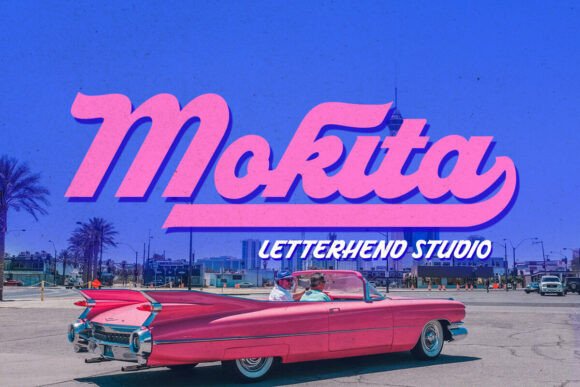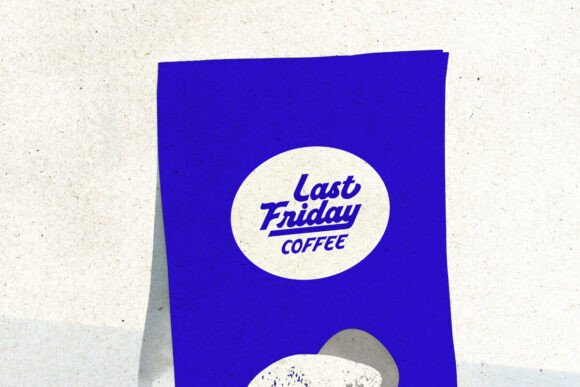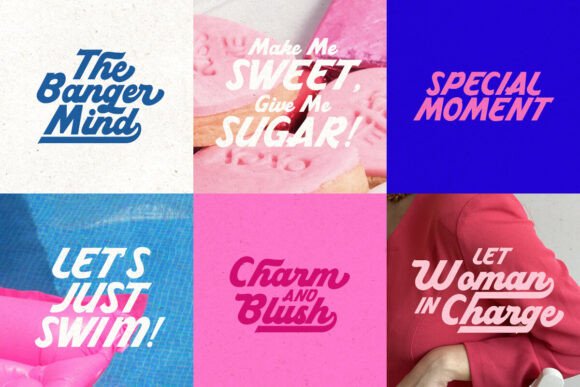
Makota Font
Meet Makota— a bold script font with a retro twist, capturing the essence of 1960s design. Featuring an easy-to-use extrude version, it’s perfect for creating eye-catching retro effects. Whether it’s logos, packaging, invitations, or any creative project, The Bayland adds a fresh and modern flair with a nostalgic edge.